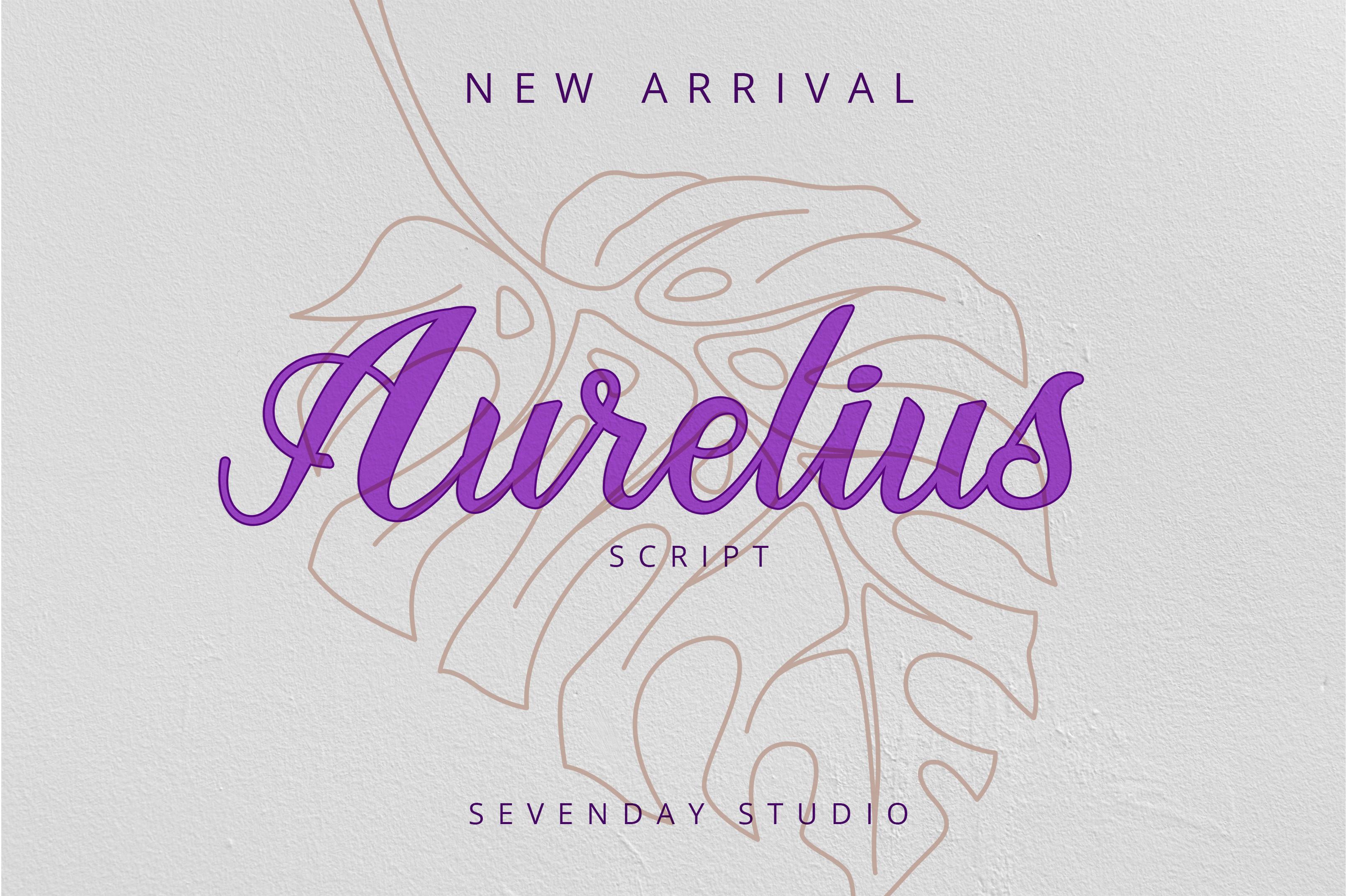
Aurelius Font Description
Aurelius is a stunning handwritten font featuring an elegant touch. This typeface is perfect for your favorite projects such as invitation cards, t-shirt designs, branding, website fonts, product labels, packaging designs, and so much more.